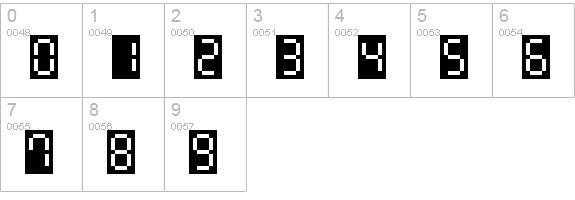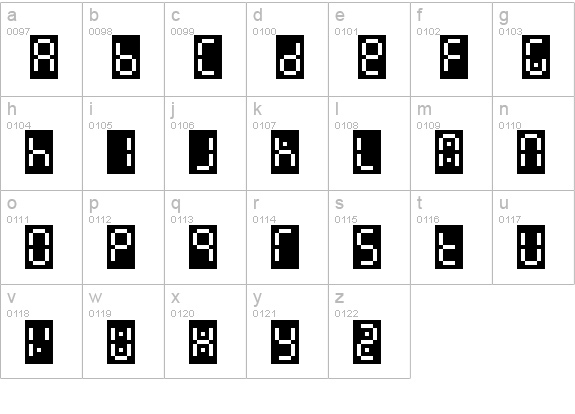
Introducing Readout-OneBack, a sleek and modern font that effortlessly combines elegance with functionality. This versatile typeface is perfect for a wide range of design projects, from branding and advertising to magazine layouts and website headers. With its clean lines and unique character shapes, Readout-OneBack adds a touch of sophistication to any design. But what sets Readout-OneBack apart is not just its visual appeal – it also offers the convenience of a free download. That's right, this remarkable font is freely available to download at FontsMarket.com. Now you can enhance your creative projects without breaking the bank. Whether you're a professional designer or a casual enthusiast, Readout-OneBack will be a valuable addition to your font collection. Its legibility and versatility make it suitable for various purposes, ensuring that your message is conveyed with clarity and style. The carefully crafted letterforms and balanced spacing create a harmonious flow of text, ensuring a pleasant reading experience for your audience. The Readout-OneBack font is meticulously designed to provide an exceptional level of detail, making each character visually appealing and distinct. Its clean and modern aesthetic pairs well with both minimalist and bold design styles, allowing you to create stunning visuals that leave a lasting impression. So why wait? Download Readout-OneBack today, for free, at FontsMarket.com and unlock a world of design possibilities. Whether you're creating a logo, designing a website, or working on a print project, this font will undoubtedly elevate your work to new heights. Experience the power of Readout-OneBack and take your designs from ordinary to extraordinary.